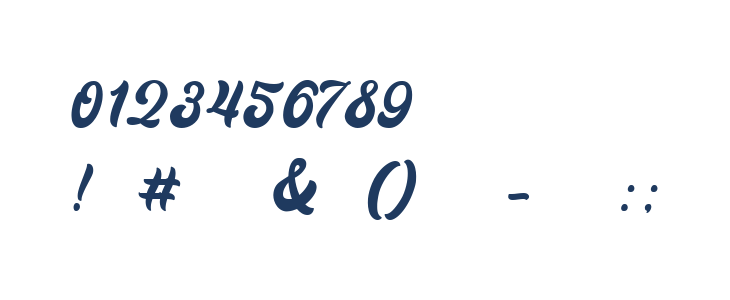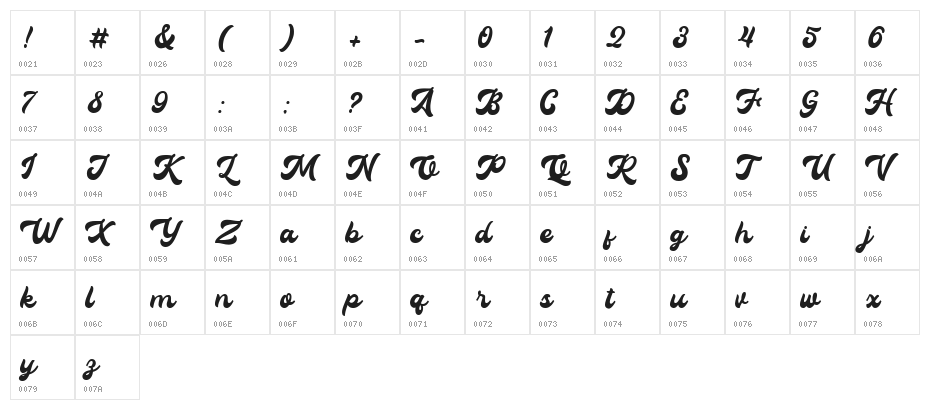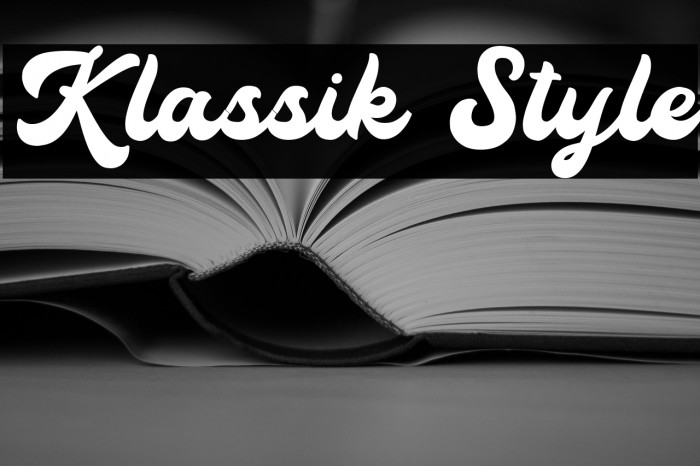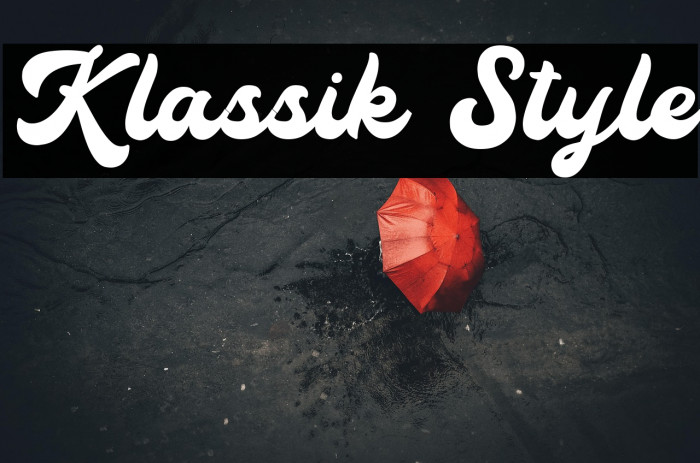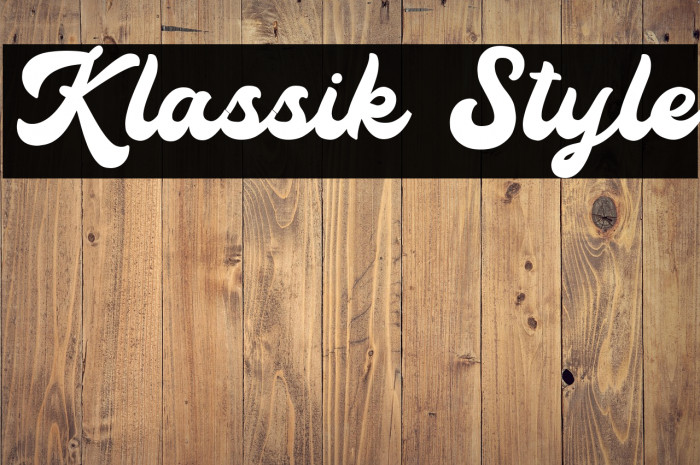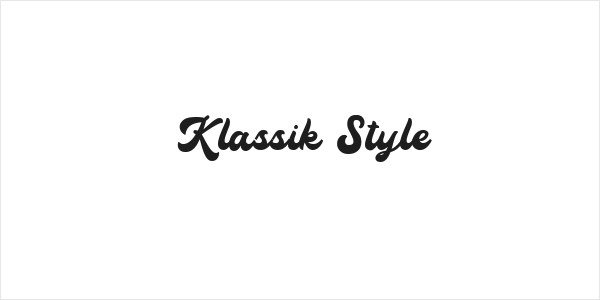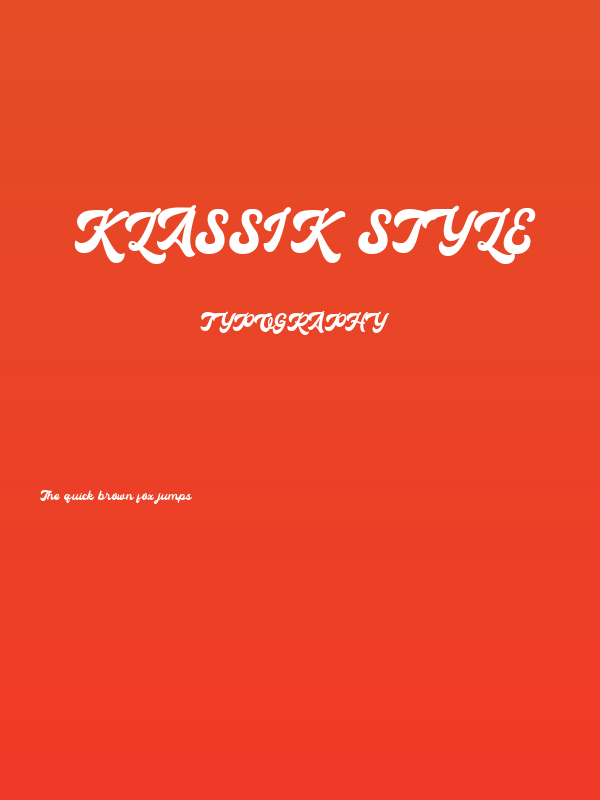
Klassik Style Font
Klassik Style Description
This font features a classic cursive style with elegant, flowing lines and a smooth, connected script. The uppercase letters exhibit a graceful flair, while the lowercase letters maintain a consistent, fluid motion. The numerals are bold and rounded, complementing the overall aesthetic. Special characters are designed with the same attention to detail, ensuring a cohesive look. The font's style is reminiscent of traditional calligraphy, offering a sense of sophistication and timelessness.
| Use Case | Logos, Invitations, Decorative Text |
| Proposed Projects | Ideal for wedding invitations, elegant branding, greeting cards, and formal event programs. |